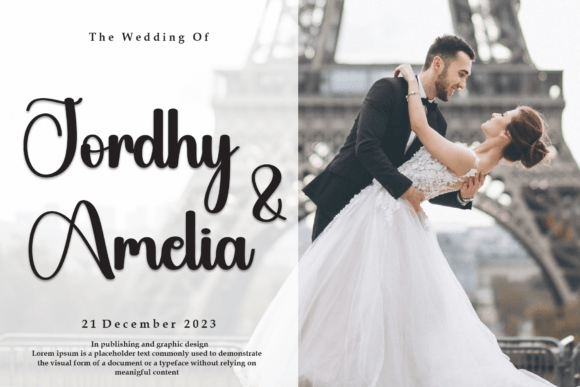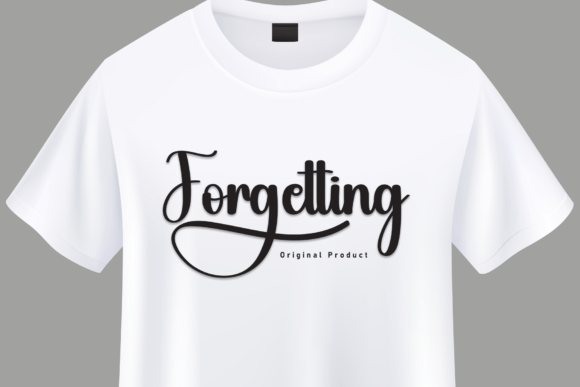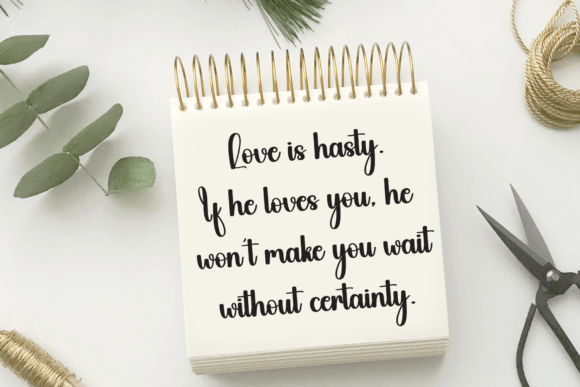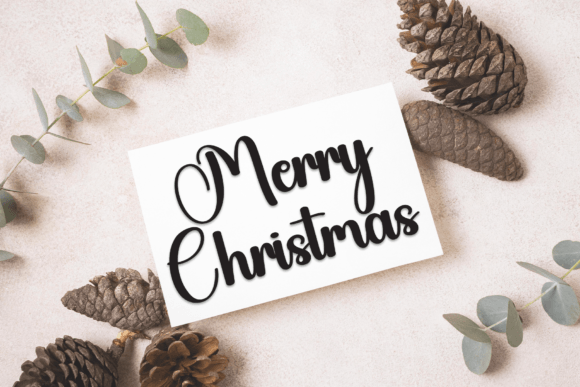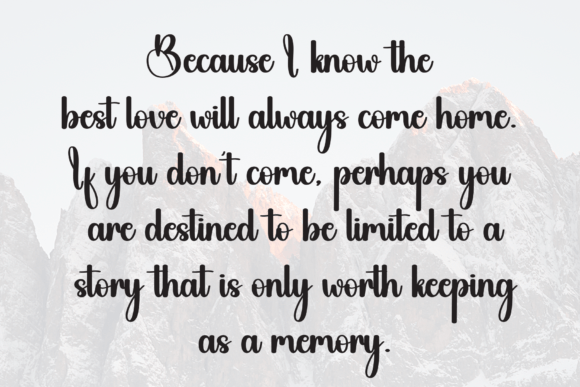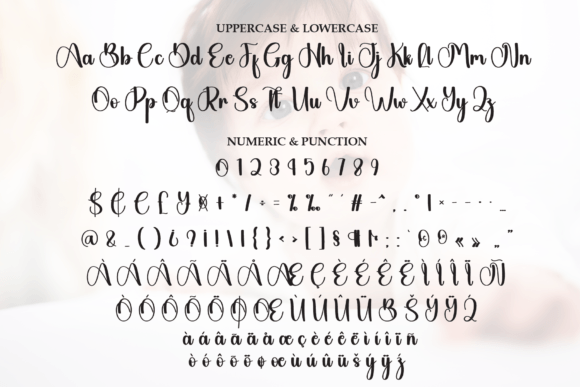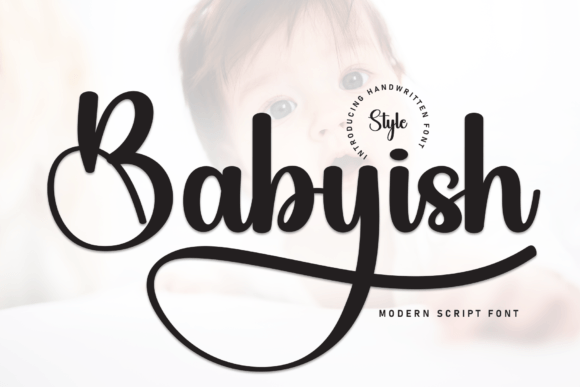
Babyish Font: The Sweet and Friendly Handwritten Display Font
Are you looking for a font that can add a touch of sweetness and friendliness to your designs? Look no further than the Babyish font! This adorable handwritten display font is perfect for creating wedding invitations, cards, and other designs that require a fun and playful touch.
What is Babyish Font?
Babyish is a sweet and friendly handwritten display font that is designed to bring a smile to your face. Its cute and fun design makes it ideal for a wide range of creative projects, from wedding invitations and cards to posters, flyers, and more. Whether you’re a designer, crafter, or DIY enthusiast, Babyish font is sure to become your go-to choice for adding a personal touch to your designs.
Key Features of Babyish Font
- Handwritten Design: Babyish font features a beautiful handwritten design that is both elegant and playful.
- Cute and Fun: This font is designed to be cute and fun, making it perfect for designs that require a lighthearted touch.
- Display Font: Babyish font is a display font, making it ideal for headlines, titles, and other prominent text elements.
- Versatile: This font can be used for a wide range of creative projects, from wedding invitations and cards to posters, flyers, and more.
Uses for Babyish Font
Babyish font is perfect for a variety of creative projects, including:
- Wedding Invitations: Add a touch of sweetness and romance to your wedding invitations with Babyish font.
- Cards: Create adorable birthday cards, thank-you cards, and other types of cards with Babyish font.
- Posters and Flyers: Use Babyish font to create eye-catching posters and flyers for events, promotions, and more.
- Social Media Graphics: Add a playful touch to your social media graphics, such as Facebook posts, Instagram stories, and more.
- Crafting Projects: Use Babyish font to add a personal touch to your crafting projects, such as scrapbooking, journaling, and more.
Why Choose Babyish Font?
There are many reasons why Babyish font is a great choice for designers and crafters. Here are just a few:
- Unique Design: Babyish font features a unique and adorable design that is sure to stand out.
- Easy to Read: Despite its playful design, Babyish font is easy to read, making it perfect for body text and other smaller text elements.
- High-Quality: Babyish font is a high-quality font that is designed to look great in any design.
- Versatile: This font can be used for a wide range of creative projects, making it a great addition to any designer’s or crafter’s toolkit.
Tips for Using Babyish Font
Here are a few tips for using Babyish font in your designs:
- Use it Sparingly: Babyish font is a display font, so it’s best to use it sparingly to add emphasis and interest to your designs.
- Pair it with Other Fonts: Babyish font pairs well with other fonts, such as sans-serif fonts and script fonts.
- Experiment with Colors: Babyish font looks great in a variety of colors, so don’t be afraid to experiment and find the perfect color for your design.
Babyish font is a sweet and friendly handwritten display font that is perfect for adding a touch of fun and playfulness to your designs. With its cute and adorable design, versatility, and high-quality construction, Babyish font is sure to become a favorite among designers and crafters. Whether you’re creating wedding invitations, cards, posters, or other designs, Babyish font is a great choice for adding a personal touch.